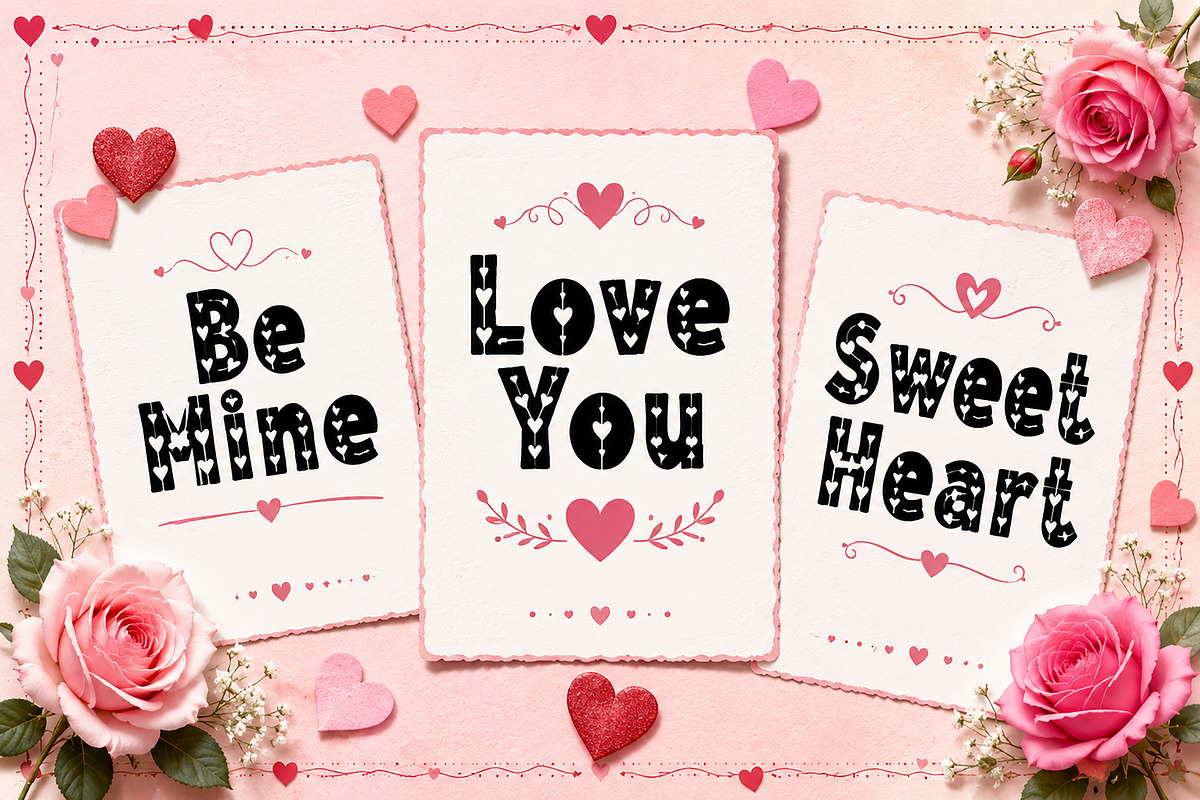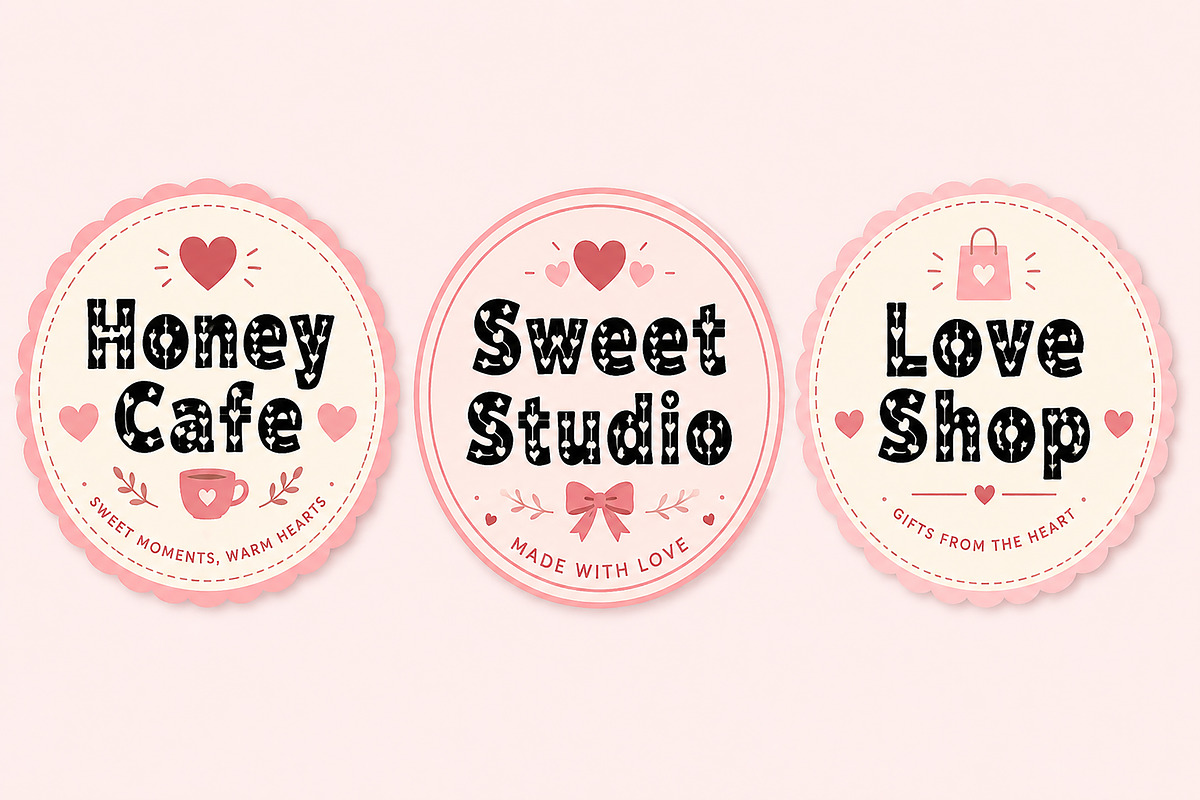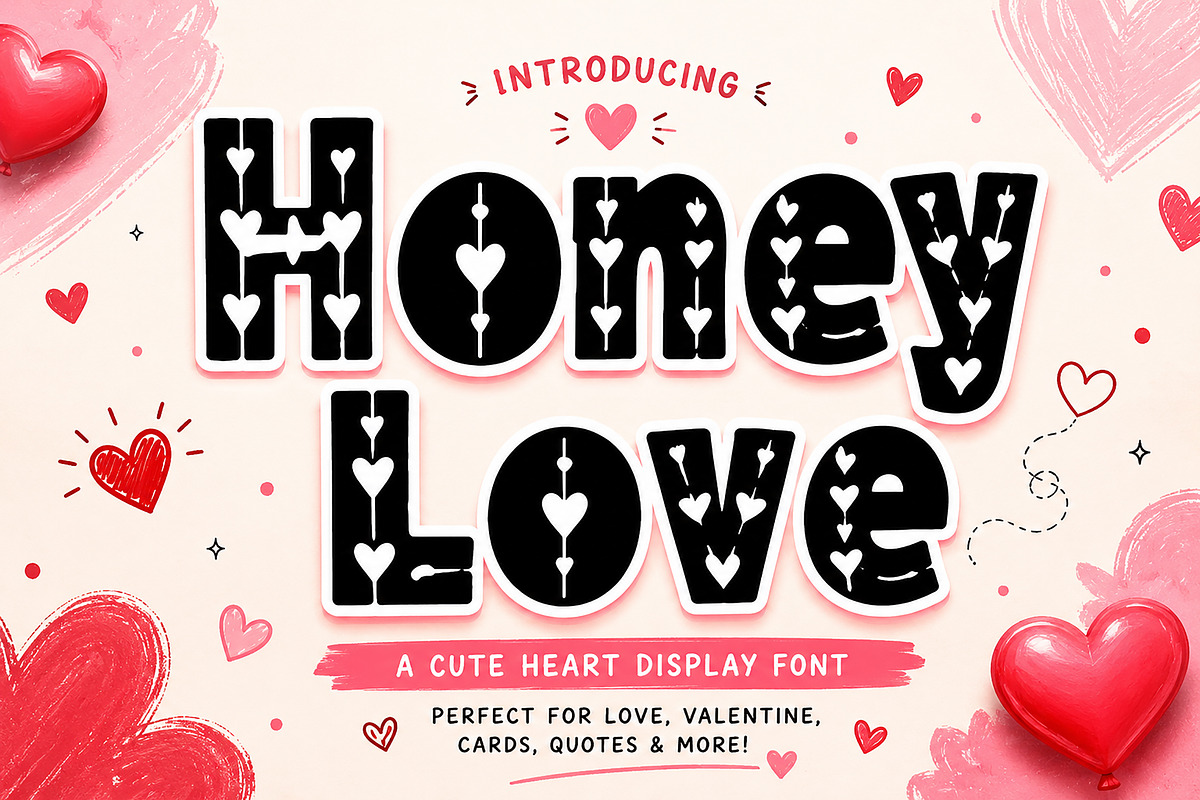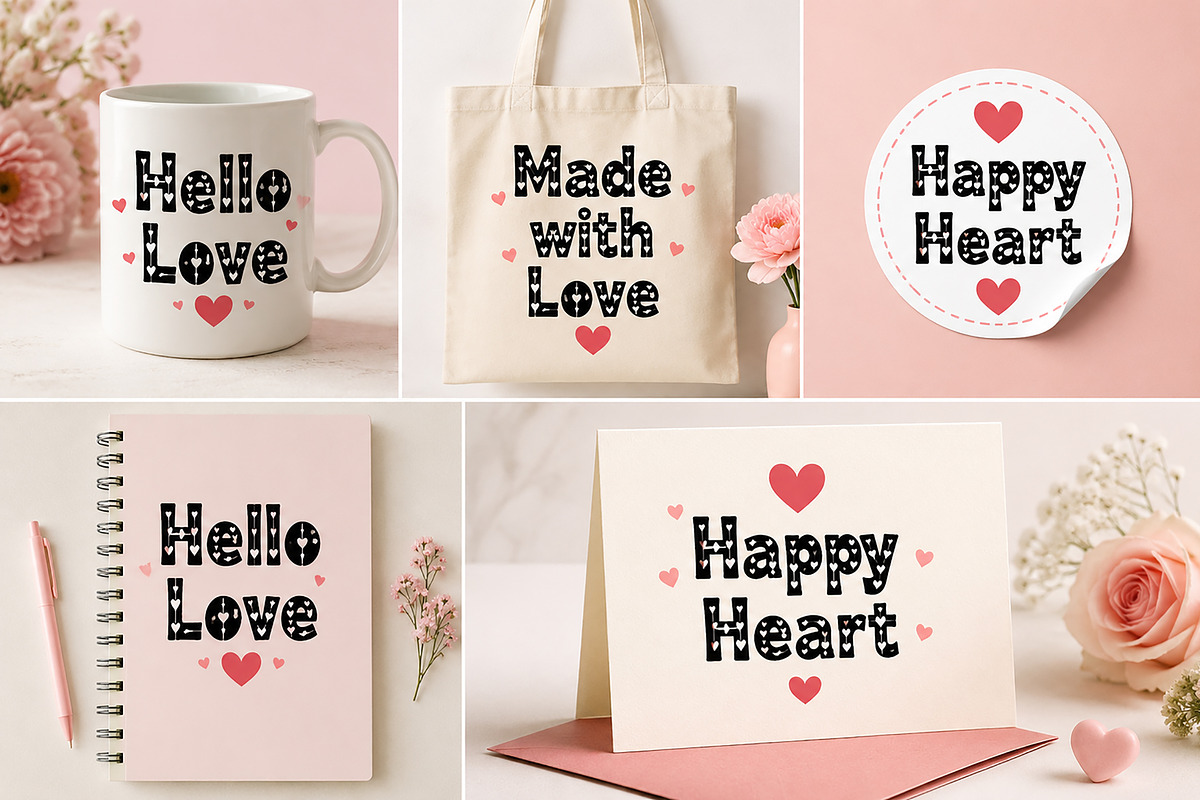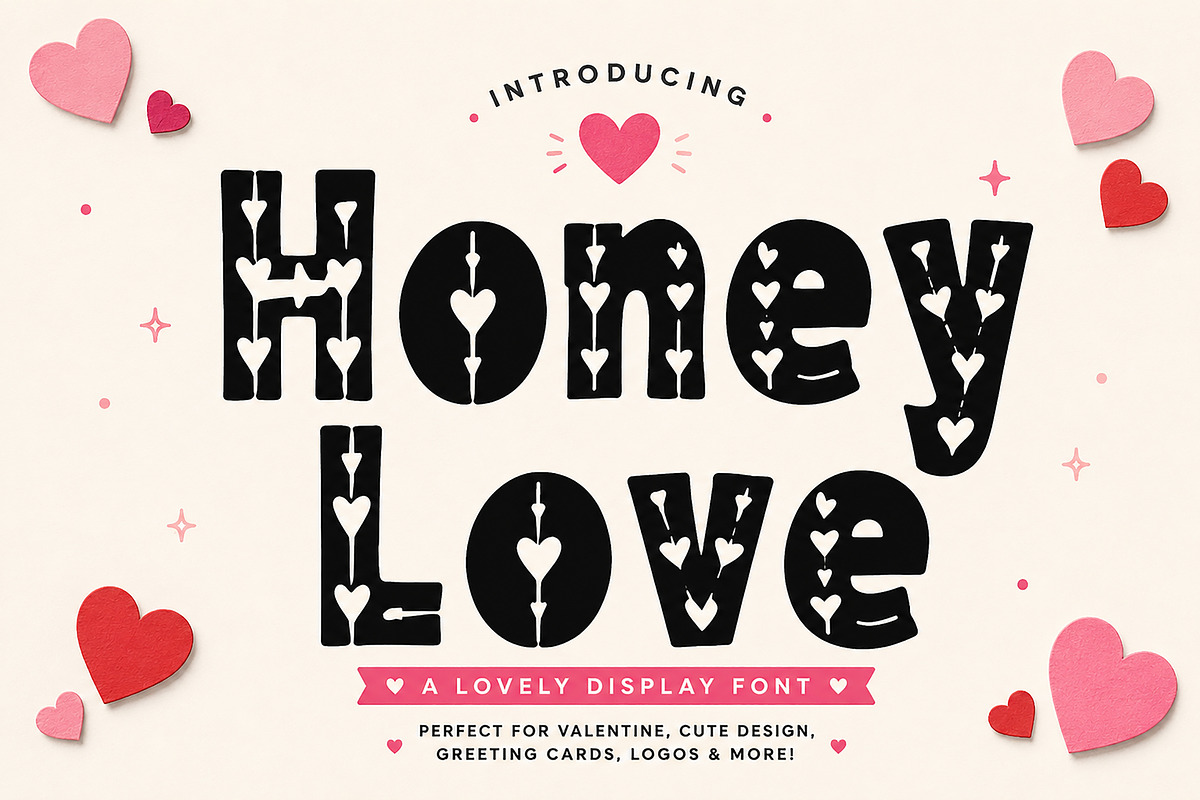
Honey Love
Honey Love – Cute Valentine Display Font
Honey Love is a sweet and playful display font inspired by love, hearts, handmade crafts, and Valentine-themed designs. Featuring charming heart-shaped details inside each letter, this font brings a warm, romantic, and cheerful personality to your creative projects.
Whether you're designing greeting cards, wedding invitations, stickers, t-shirts, mugs, logos, social media graphics, or Cricut crafts, Honey Love adds a fun and lovable touch that instantly captures attention.
Its bold letterforms and unique heart embellishments make it perfect for projects that need a cute, friendly, and memorable look.
Valentine's Day Designs
Greeting Cards
Wedding Invitations
Stickers & Labels
Cricut & Silhouette Projects
Bakery Branding
Kids Products
Gift Shop Logos
Social Media Posts
T-Shirt Designs
Mugs & Tote Bags
Scrapbooking
Quotes & Typography Art
Handmade Product Branding
Unique Heart-Themed Design